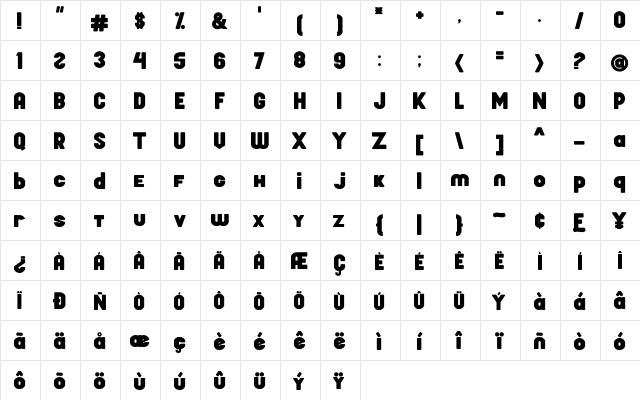
Fortman Regular
Design Context for Fortman Typeface
Fortman takes a measured approach to typography — its balanced proportions and neutral character make it a reliable workhorse for both digital and print work.
Pro Tip: Pair Fortman with a font of contrasting weight or personality to build a more expressive typographic hierarchy.